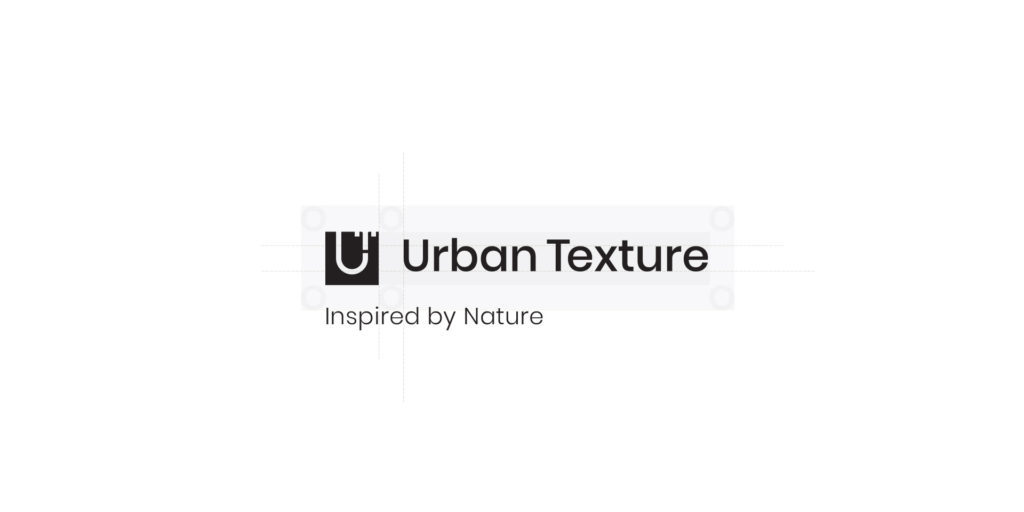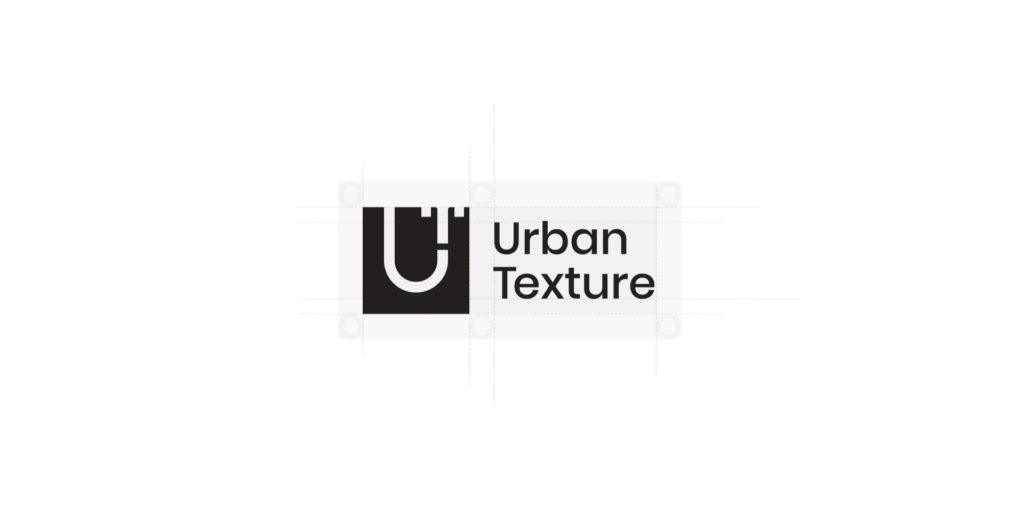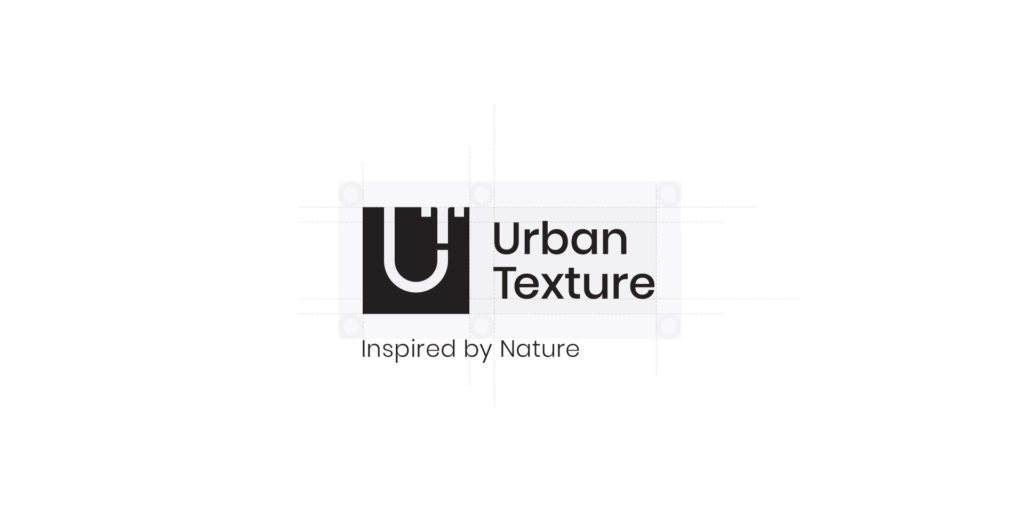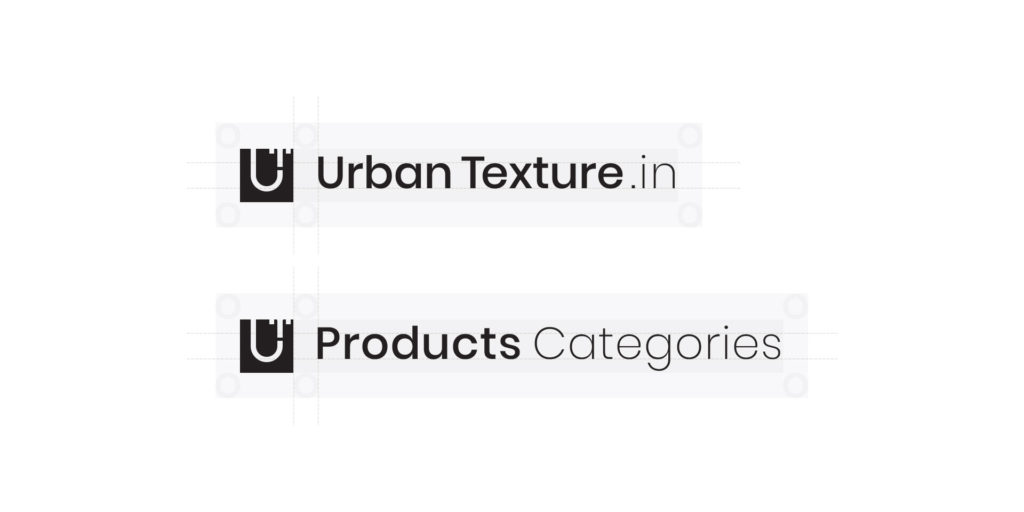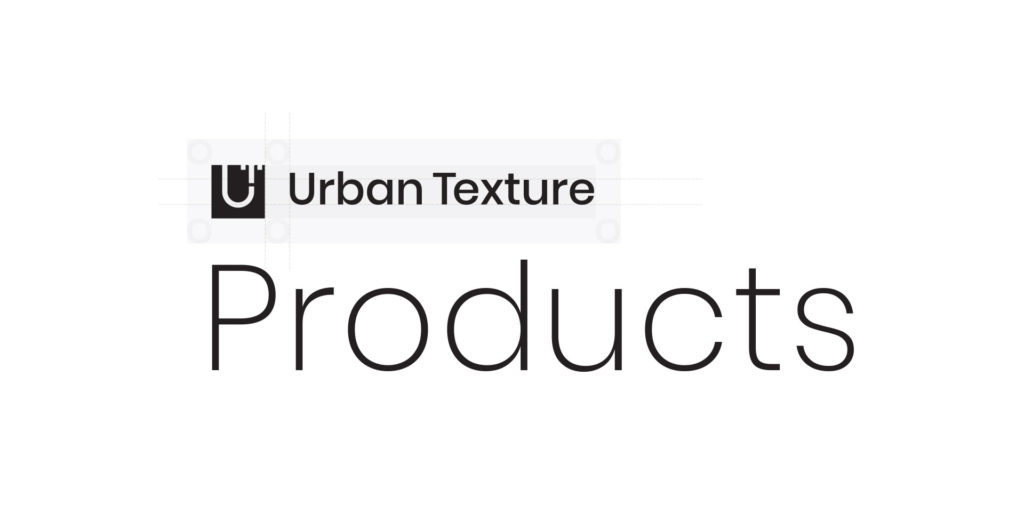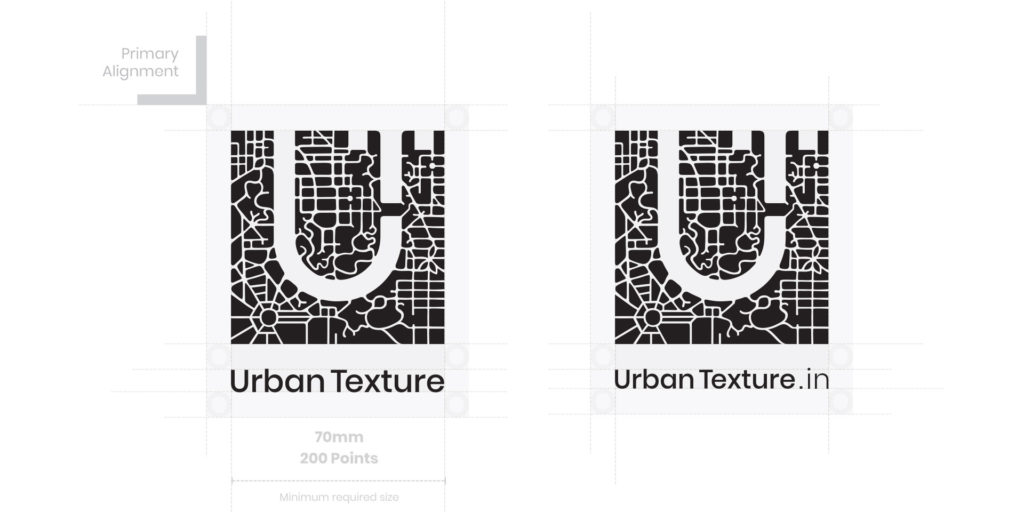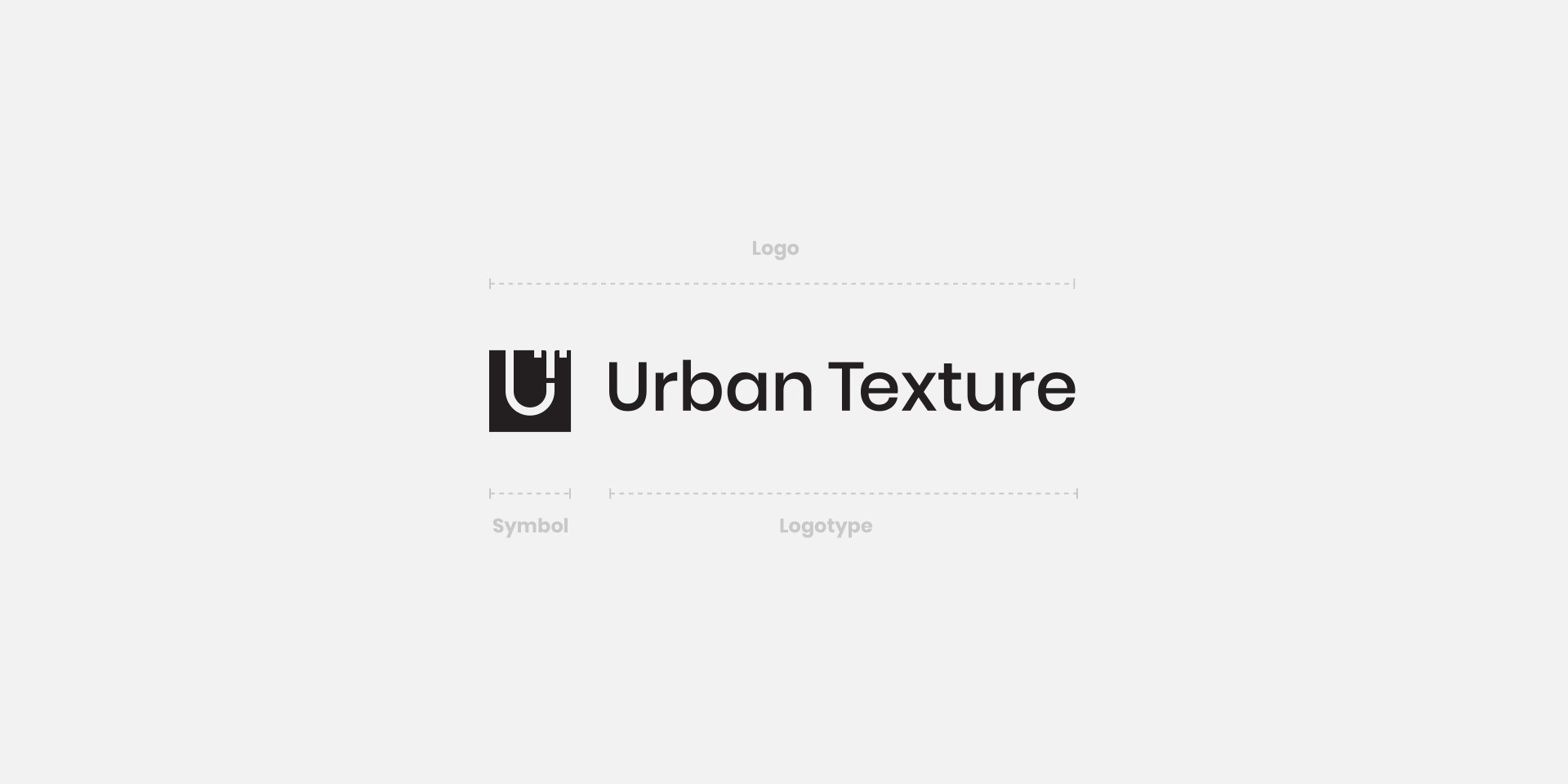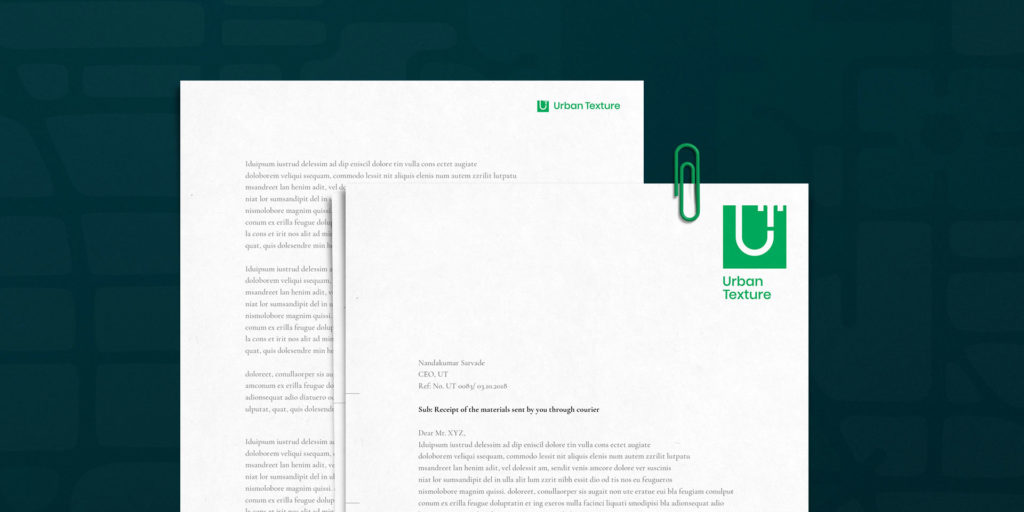
Urban Texture Studio specialises in custom architectural laser cutting concepts — signages, elevation cladding, safety gates, staircase railing, decorative screens, privacy screens, garden screens, corten screens, outdoor landscape screens, wall arts, murals, furniture, etc.
Urban Texture
Inspired by Nature
A shape evolving itself from the complex organic landscape to a simple most geometric form. It has come along in shape like a river finding its way out through the landscape. Each intricate and complicated details collectively contribute to the most simple identity.
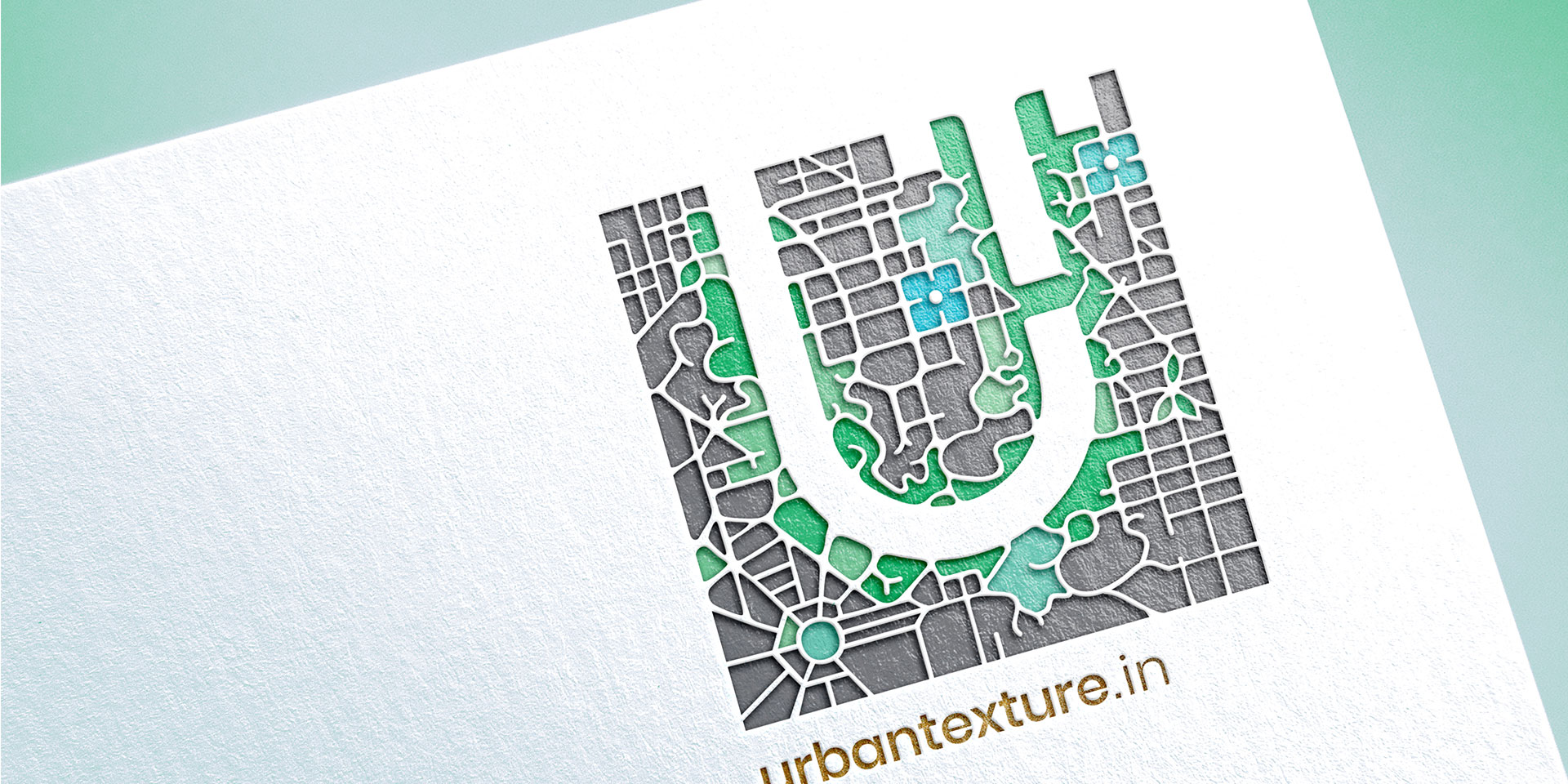
UT Simplified Signature
The primary and alternative simplified versions of the UT symbol are designed for the corporate signature in print and digital applications. Both positive and negative forms are constructed with the most basic geometric shapes optically corrected for better visual balance.
UT Corporate Applications
The corporate logo has two components – the symbol with UT inside the square intended to symbolize the company’s profile in urban nature. And the logotype that is always to be used along with the symbol. Both together are described as the corporate logo for Urban Texture. Poppins by Indian Type Foundry and Cormorant Garamond by Christian Thalmann are the typefaces used for all products and marketing communications.
Regular Vs Stencil
The stencil version of the symbol is an alternative version of the symbol. It is designed especially for the laser-cut, wallpaper graffiti, cutout, mask, alternative screen printing, single colour or gradient colour print experiments. Though the form gets disturbed a bit by the added extra intricate details to make it a stencil. It still carries all the identical visual essence of the original UT symbol.